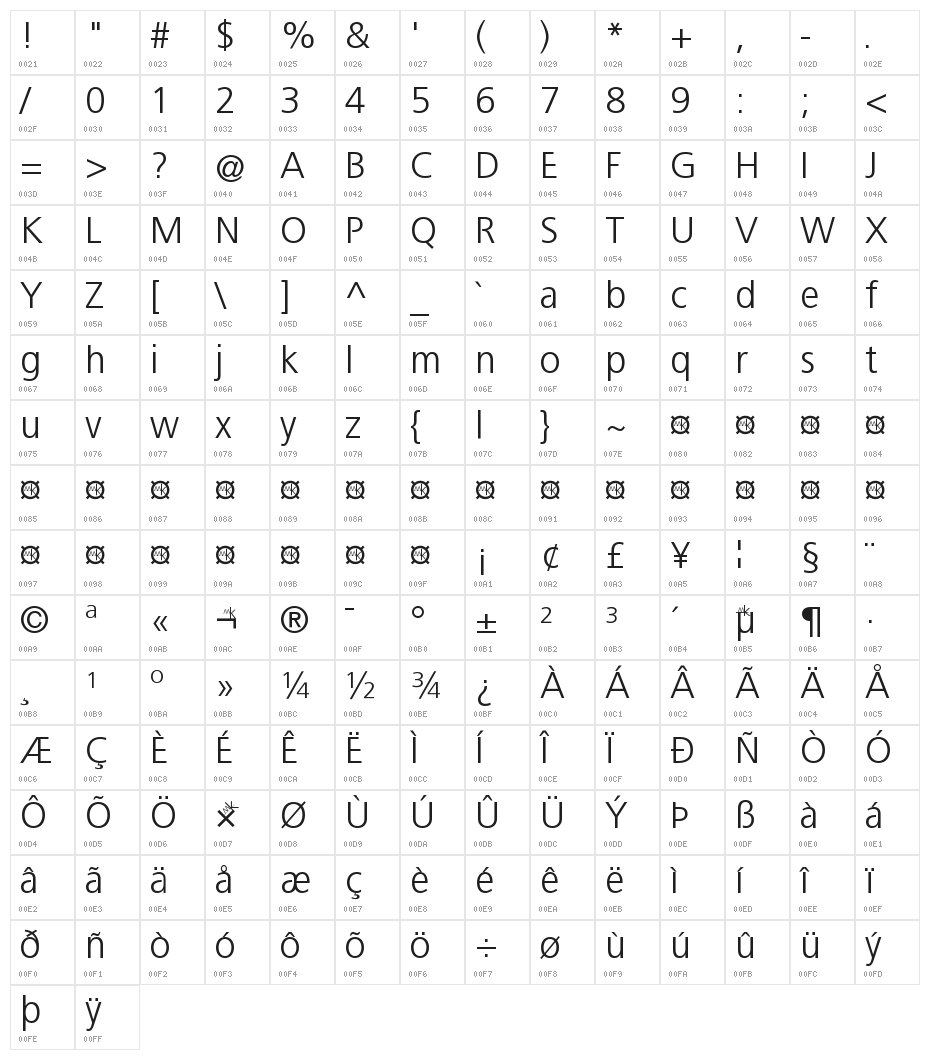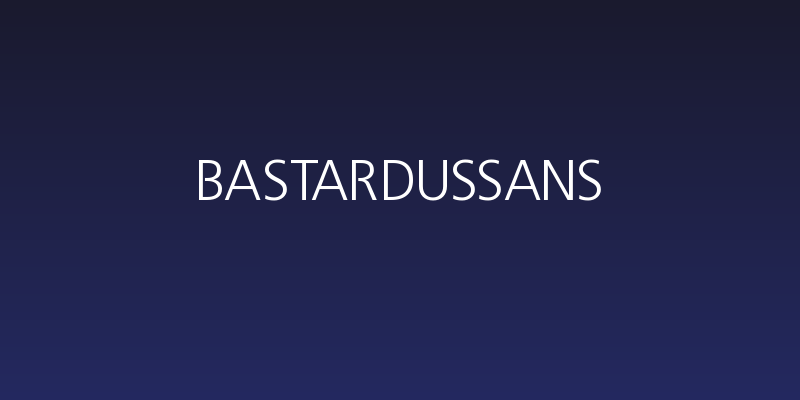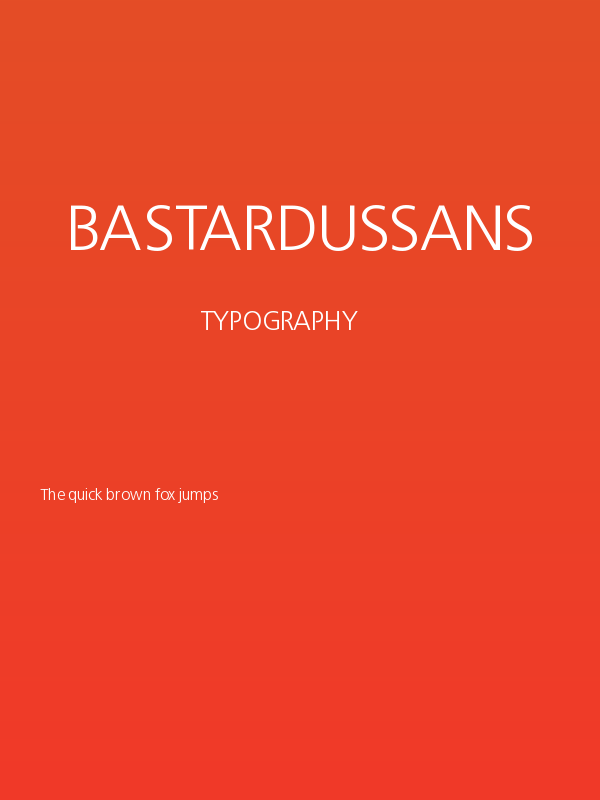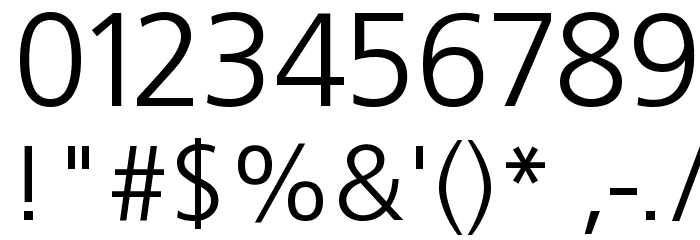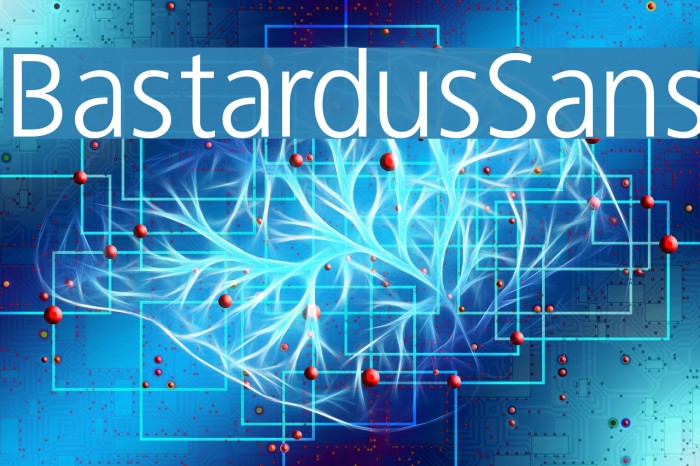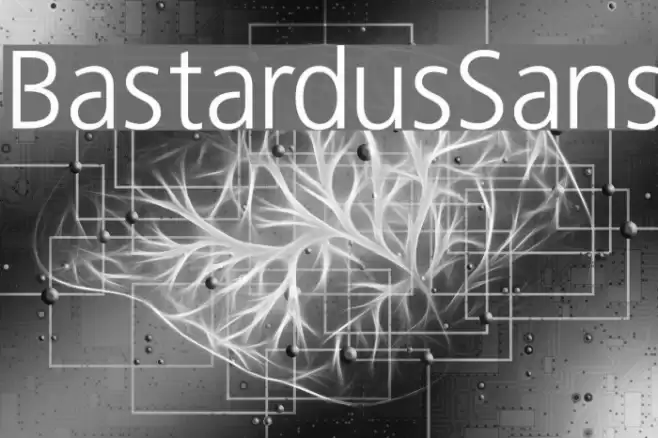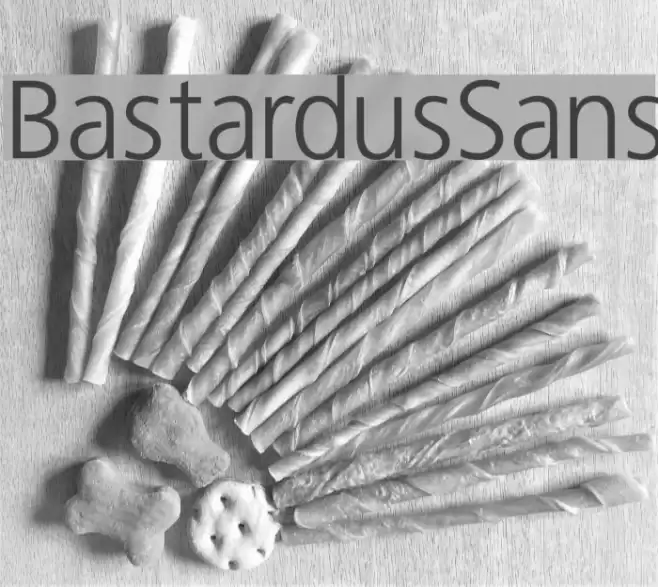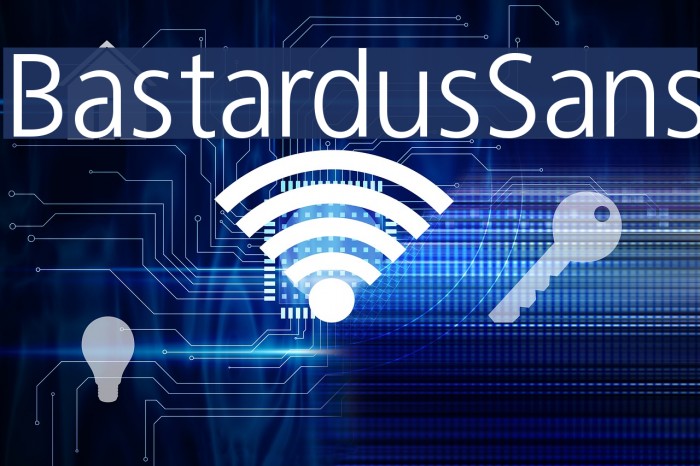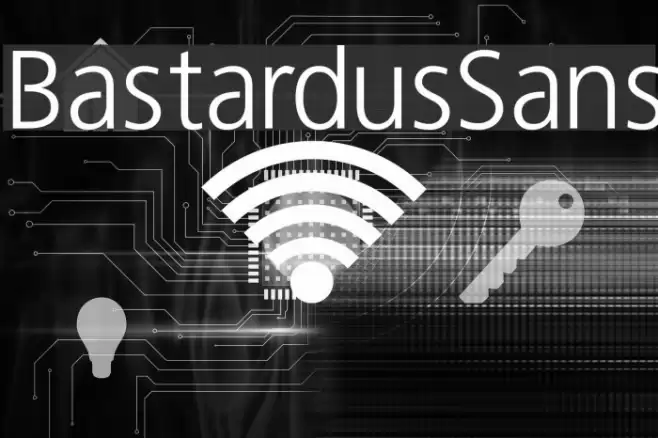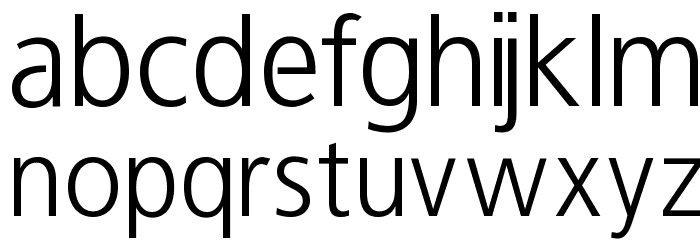
BastardusSans Font
BastardusSans Description
This font features a clean and modern sans-serif design with a geometric structure. The characters are well-balanced with consistent stroke widths, giving it a uniform appearance. The uppercase letters are bold and assertive, while the lowercase letters maintain a friendly and approachable feel. The numerals are clear and legible, making them suitable for a variety of applications. Special characters are included, providing versatility for different contexts. The overall design is minimalistic, making it ideal for contemporary projects.
| Use Case | Headlines, Body text, Logos |
| Proposed Projects | Ideal for branding, web design, advertising, and editorial projects where a modern and clean aesthetic is desired. |